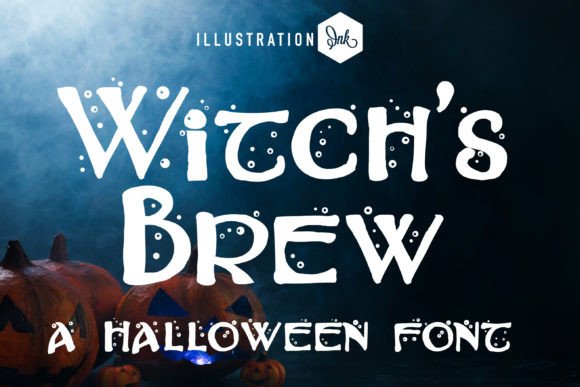
Journey into the enchanting realm of Witch's Brew, a spellbinding display font that will cast a bewitching aura over your creative endeavors. Its modern, mystical style is reminiscent of enchanted forests, whispered spells, and mystical incantations. Imbue your designs with an air of mystery and captivate your audience with this font's captivating allure.
Conjure breathtaking designs that transport your viewers to a realm of magic and wonder. Witch's Brew's whimsical nature lends itself perfectly to projects ranging from enchanting logos and captivating posters to ethereal invitations and captivating social media graphics. Its versatility knows no bounds, allowing you to weave your creative magic across various platforms and formats.
Unleash your inner storyteller and weave captivating narratives through your designs with Witch's Brew. Its distinctive characters will add a touch of intrigue to your projects, inviting your audience to embark on a journey of imagination and exploration. Whether crafting captivating marketing materials or creating stunning works of art, this font will infuse your creations with an otherworldly charm.
Elevate your designs to new heights of enchantment with Witch's Brew. This font is the perfect companion for those seeking to infuse their creative projects with a touch of magic and mystery. Its enchanting style will leave a lasting impression, captivating your audience and transporting them to a world of wonder.